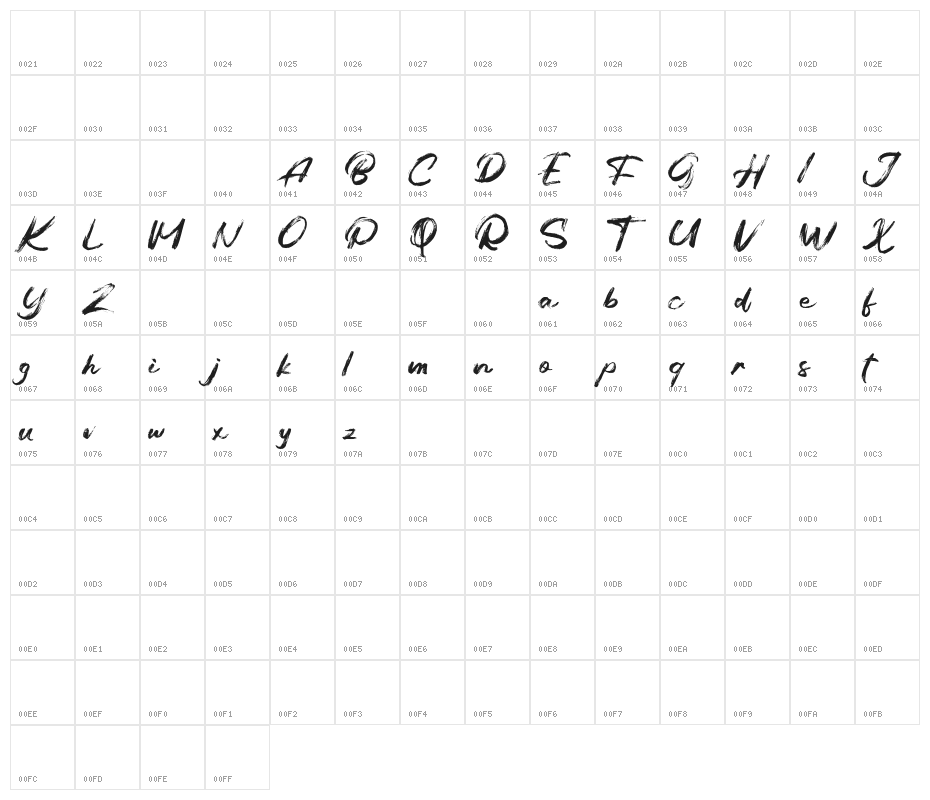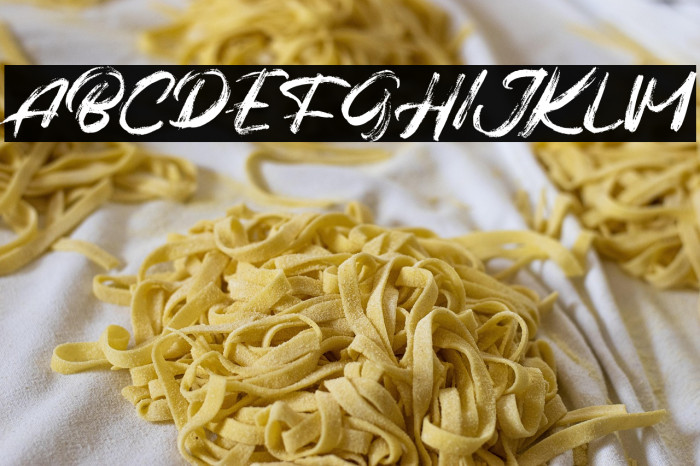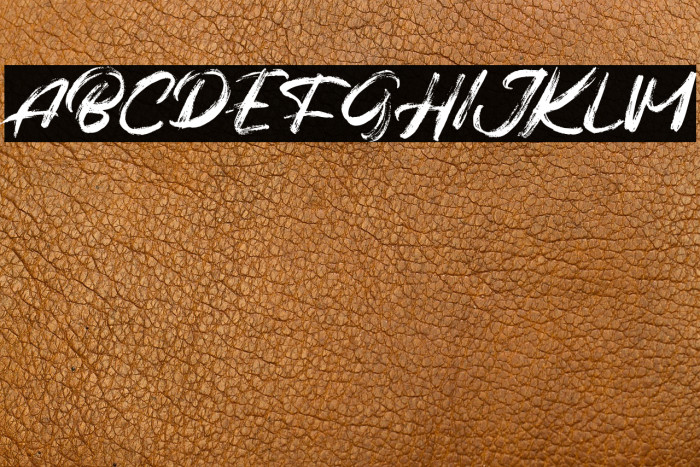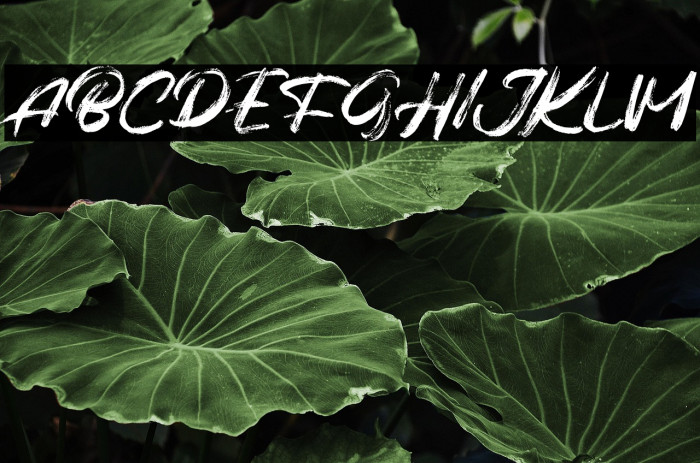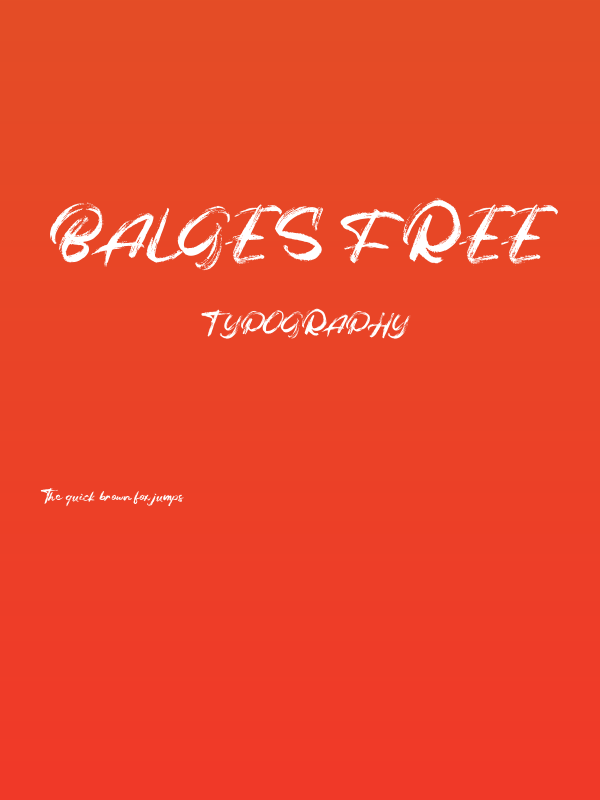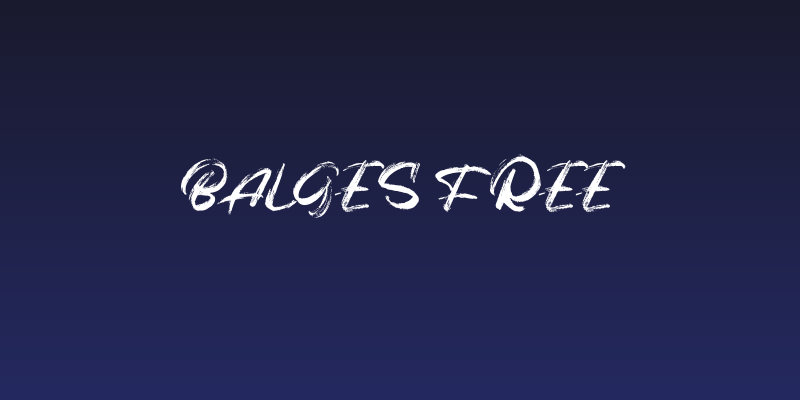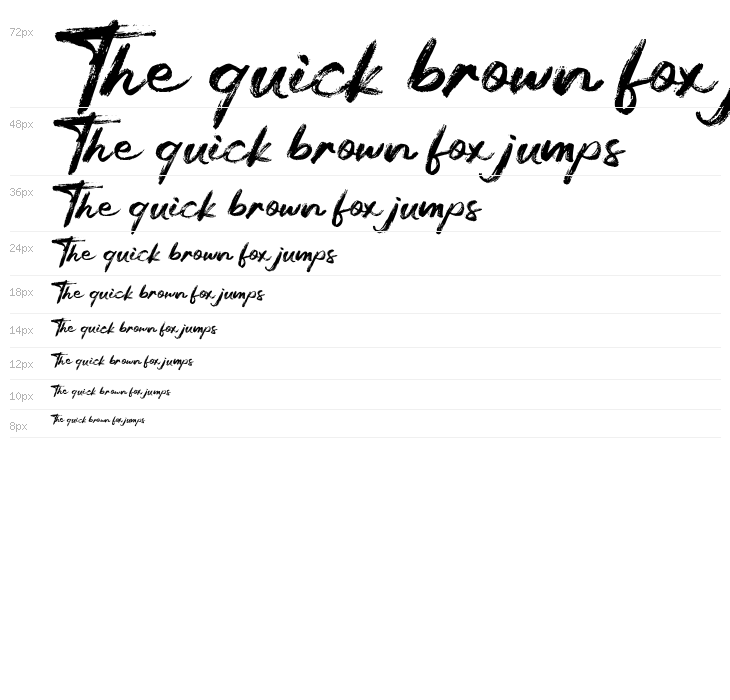
Balges FREE Font
Balges FREE Description
This font features a bold, expressive brush style that exudes a sense of energy and dynamism. The strokes are uneven and textured, giving it a hand-painted appearance. The uppercase and lowercase letters maintain a consistent style, with a slightly slanted orientation that adds to its casual and artistic feel. The texture of the strokes varies, creating a sense of movement and depth. This font is ideal for projects that require a personal touch or a creative flair, such as artistic posters, branding for creative industries, or any design that aims to stand out with a bold statement.
| Use Case | Headlines, Logos, Artistic projects |
| Proposed Projects | Artistic posters, creative branding, bold headlines, and unique invitations. |